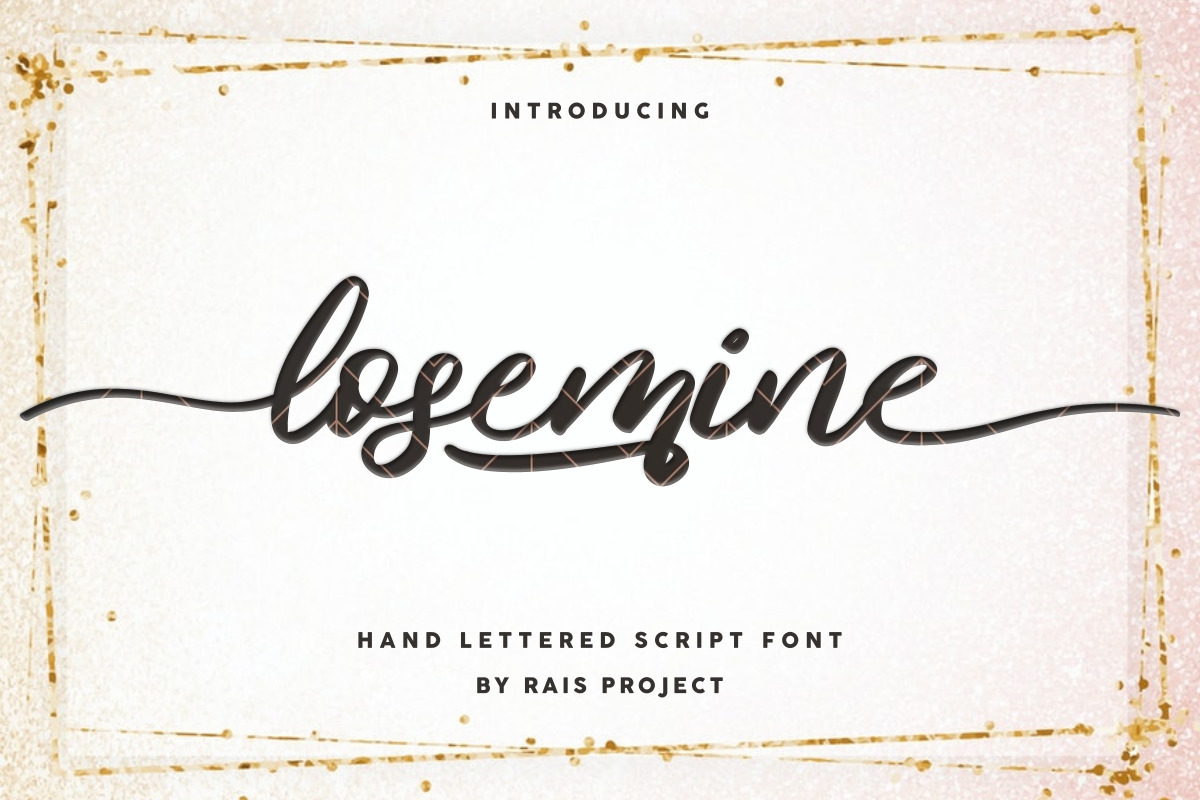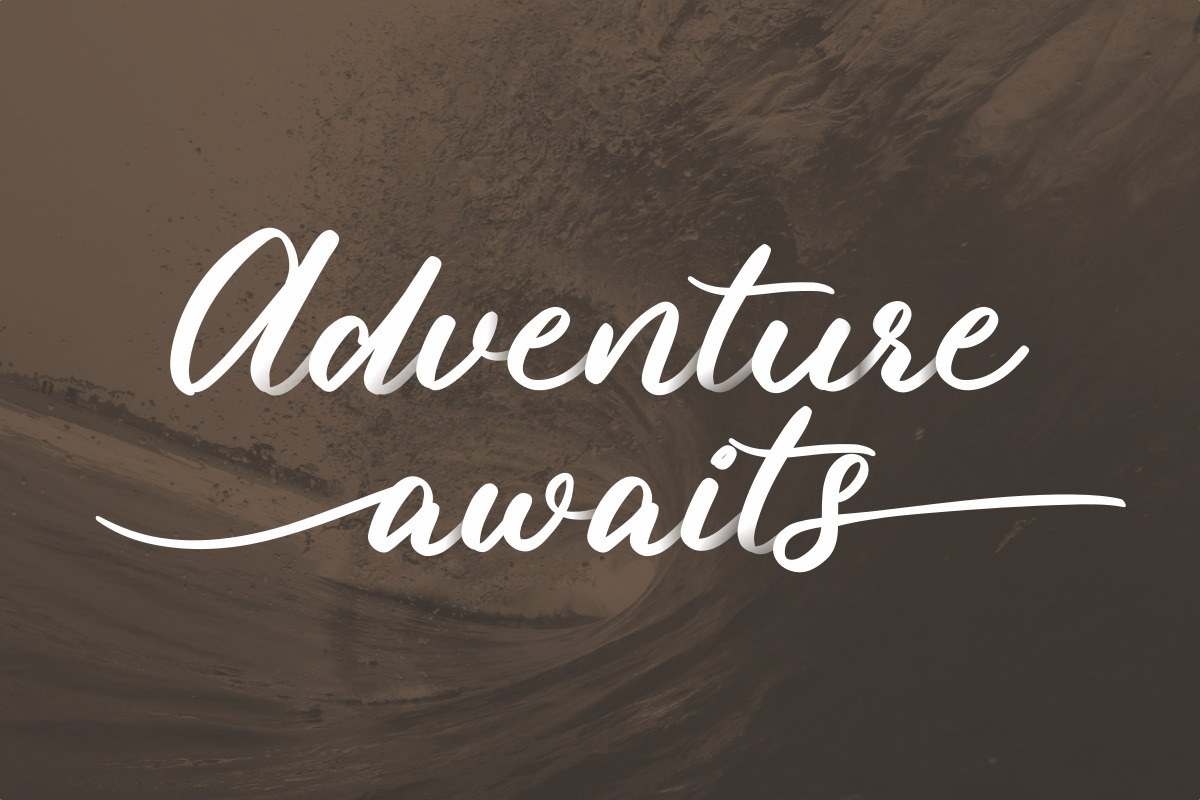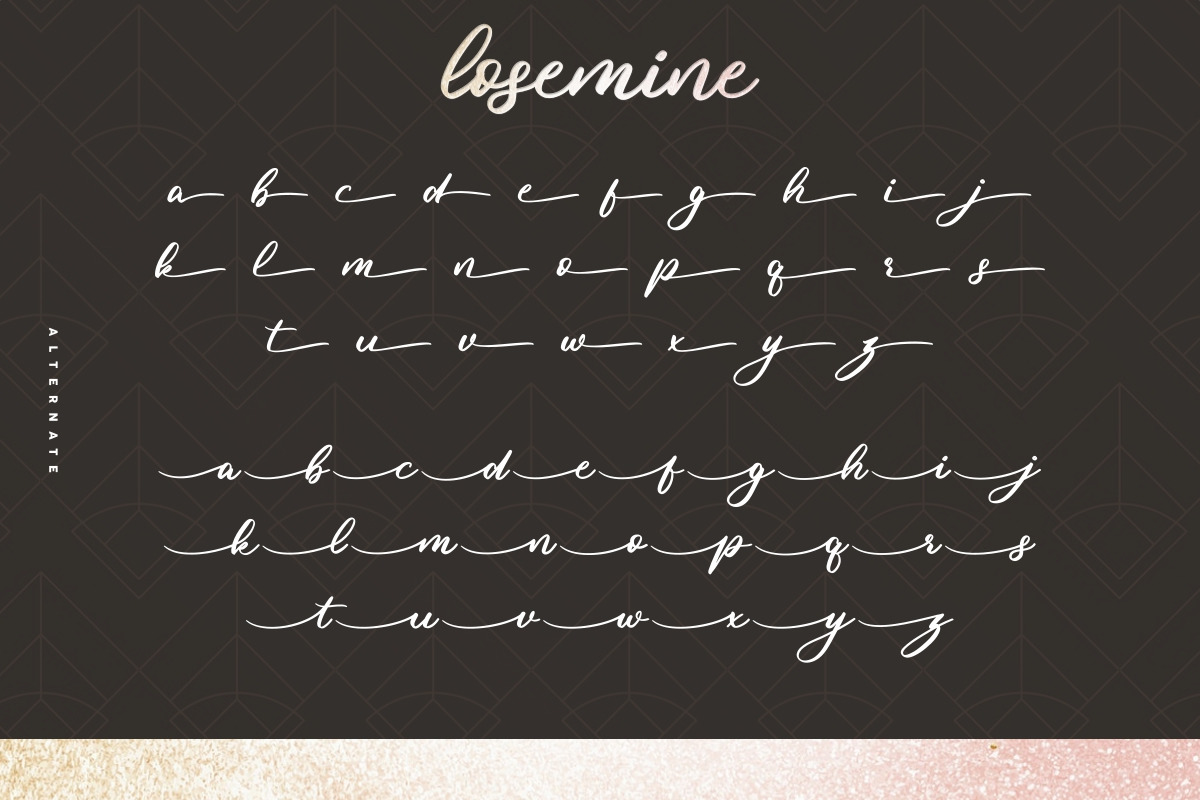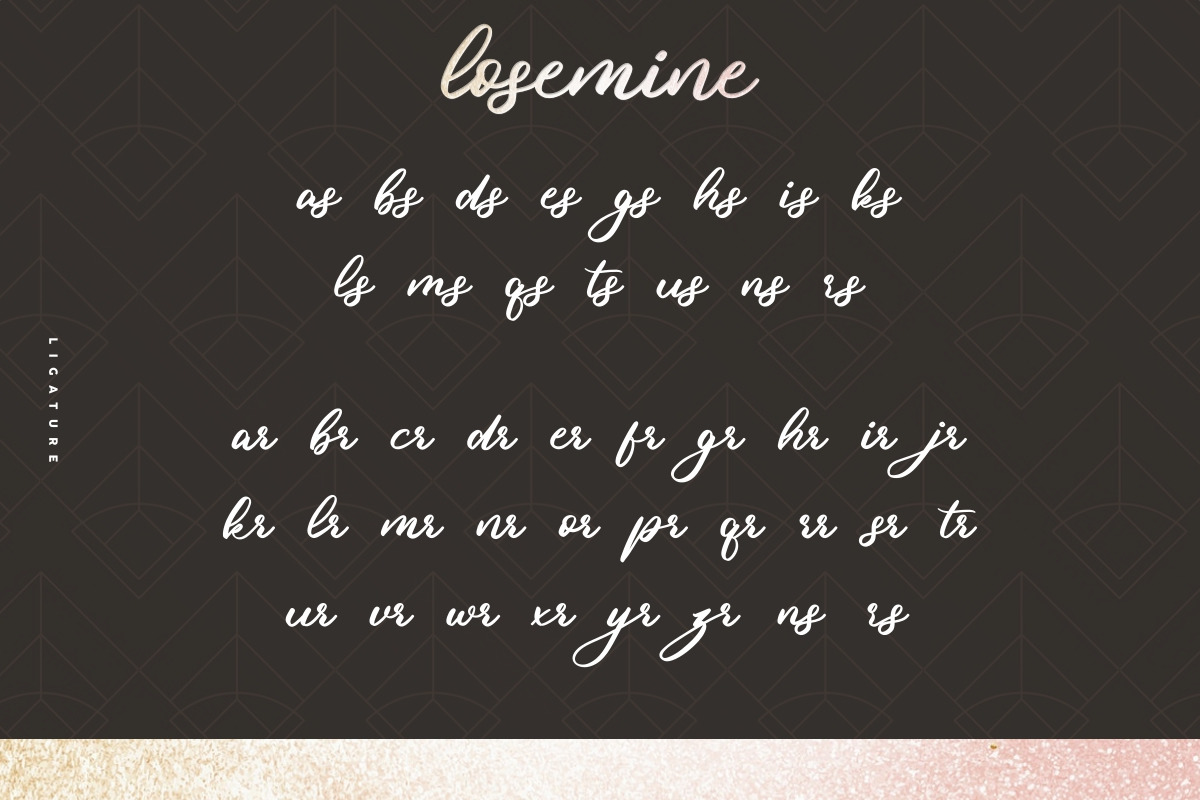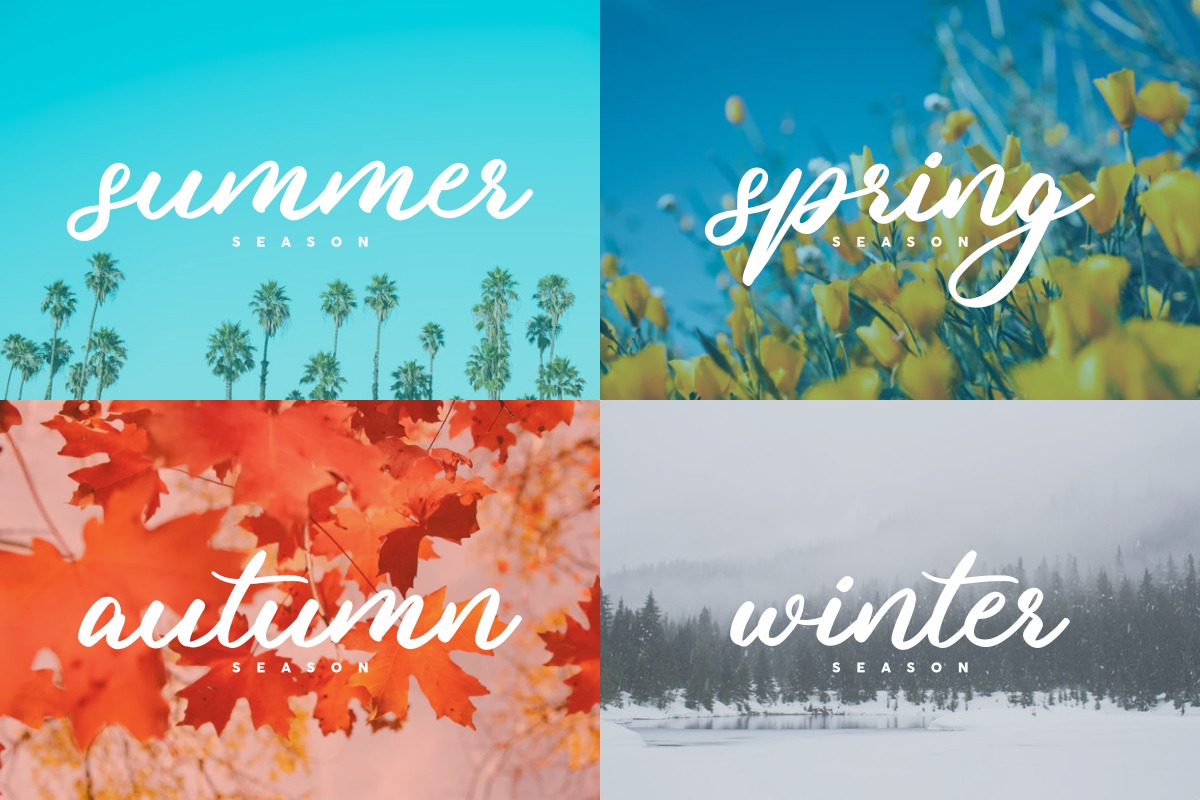
Losemine Calligraphy Font
Losemine Font is a script font with calligraphy handwriting style. Losemine Font will be stunning for any your special projects including : weddings, promotion, events, branding, advertising, magazine, shopping, signage, invitation, stationery, social media posts, product packaging, product designs, label, photography, watermark or and any projects that need calligraphy handwriting style.